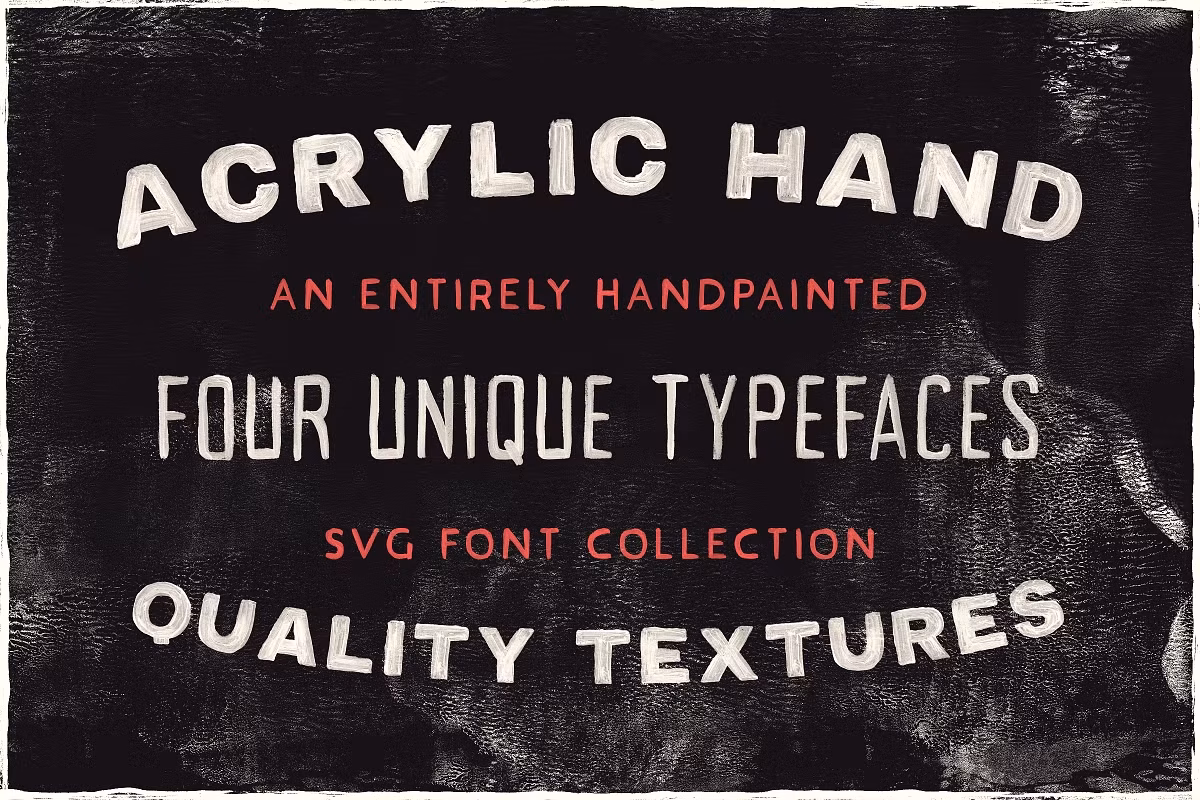
Acrylic SVG Font Collection Free Download
Acrylic SVG Font Collection Free Download is a vibrant and artistic font set that captures the texture and energy of real acrylic brush strokes in high resolution. Please note: you must purchase this font for commercial use, but you can test it through a free download. As an OpenType SVG collection, this bundle delivers layered color, rich detail, and expressive movement—perfect for posters, album covers, branding, packaging, and bold creative projects.
Ideal for designers who want to bring fine art into their digital work, this collection offers a variety of styles that feel handmade, authentic, and dynamic. Whether you're crafting an eye-catching headline or an edgy fashion label, Acrylic SVG Font Collection Free Download provides texture and flair like no other. Best used with Adobe Photoshop or Illustrator. Download it today for personal use and give your typography a bold brush of creativity with Acrylic.